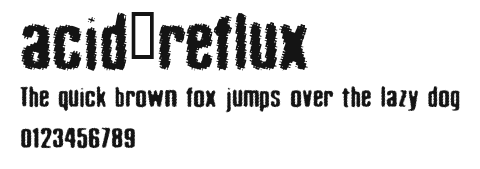
acid_reflux Preview
• Font Name: acid_reflux
• Full Font Name: acid_reflux
About acid_reflux.ttf
acid_reflux.ttf is a modern, elegant sans-serif font designed for ultimate readability and visual harmony. Perfect for branding, headlines, web design, and print materials.